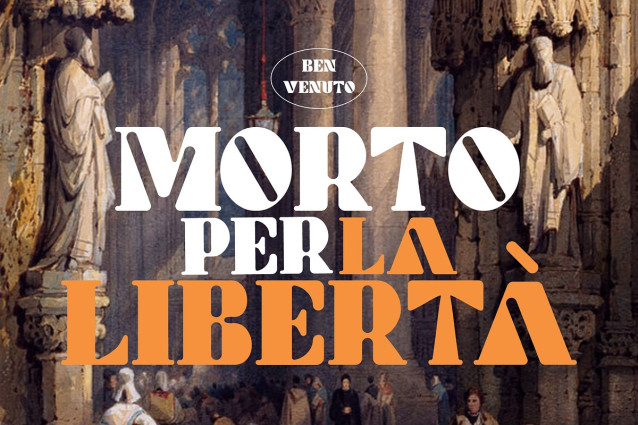
Gestur Display Font
Gestur Display Font is a display font It’s fun and groovy with a bold personality This font to give your logo,business card and another project to a unique vintage look.